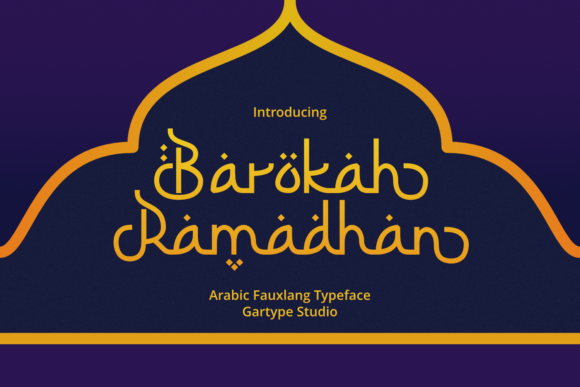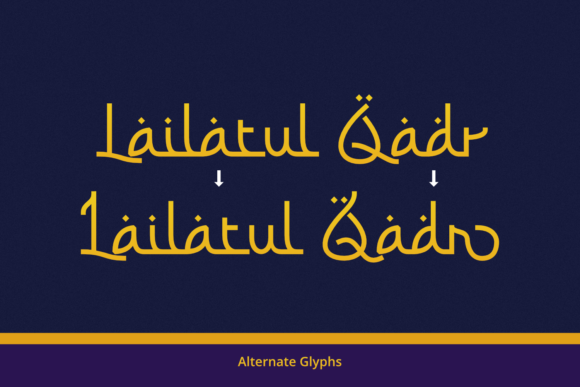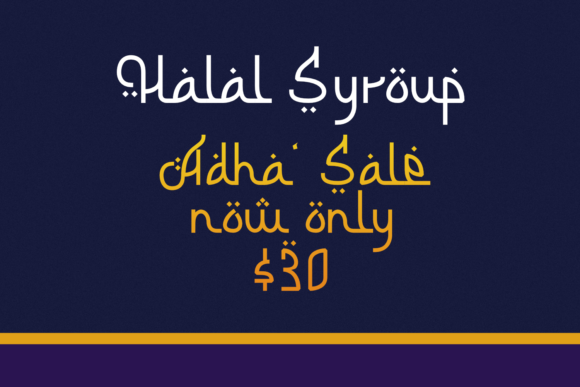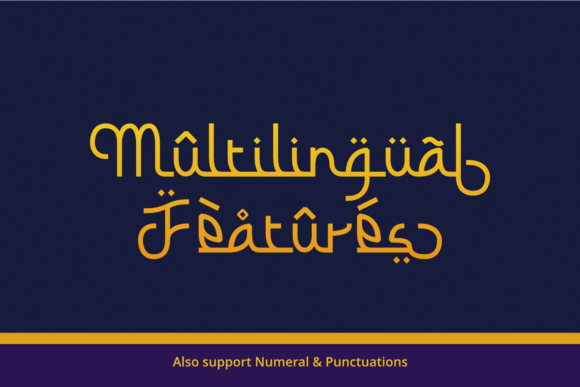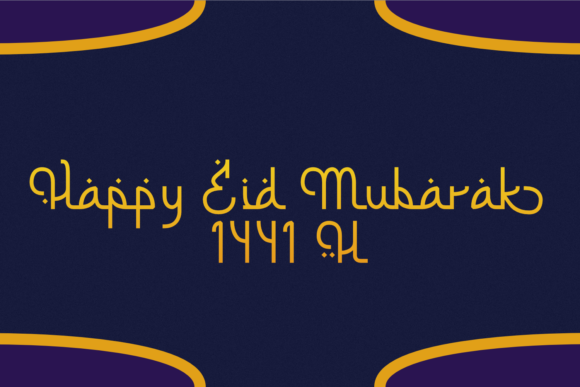
Barokah Ramadhan Font
About Barokah Ramadhan Font
Barokah Ramadhan is a script font inspired by the Arabic alphabet. Use it for any project that requires a personalized look!